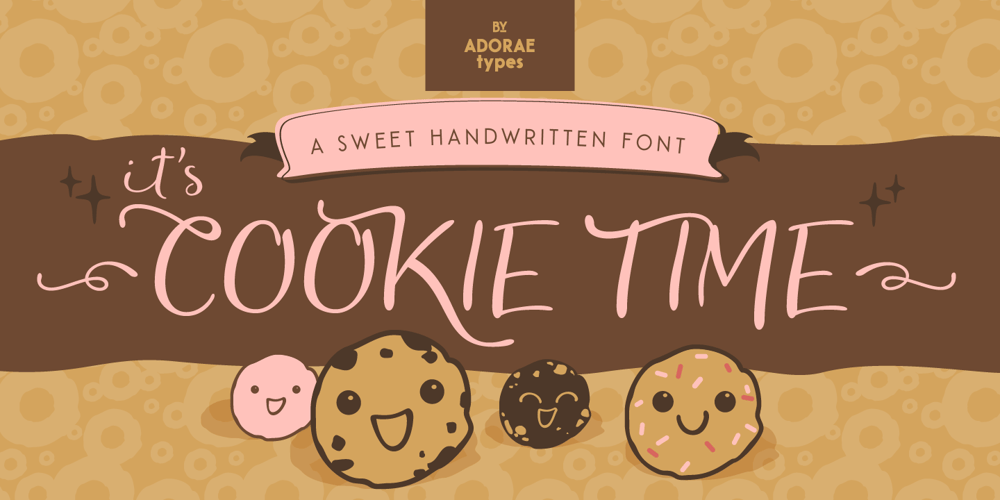
Cookie Time
Cookie Time font
Cookie Time Font Family was designed by Emilia Adorno and published by Adorae Types. Cookie Time contains 2 styles and family package options. Cookie Time, a font where a cute script and doodles make a perfect blend together. Dream and create joyful and lovely designs for packaging, websites, branding, tags, photography, book covers, posters, and anything you can imagine!Cookie Time contains 510 glyphs, featuring standard & discretionary ligatures, swashes, alternates for upper and lowercase characters, alternate ligatures, and a full Latin Pro character set.Cookie Time Ornaments offers 80+ doodles & flags to be combined with each other and create playful and dynamic design.